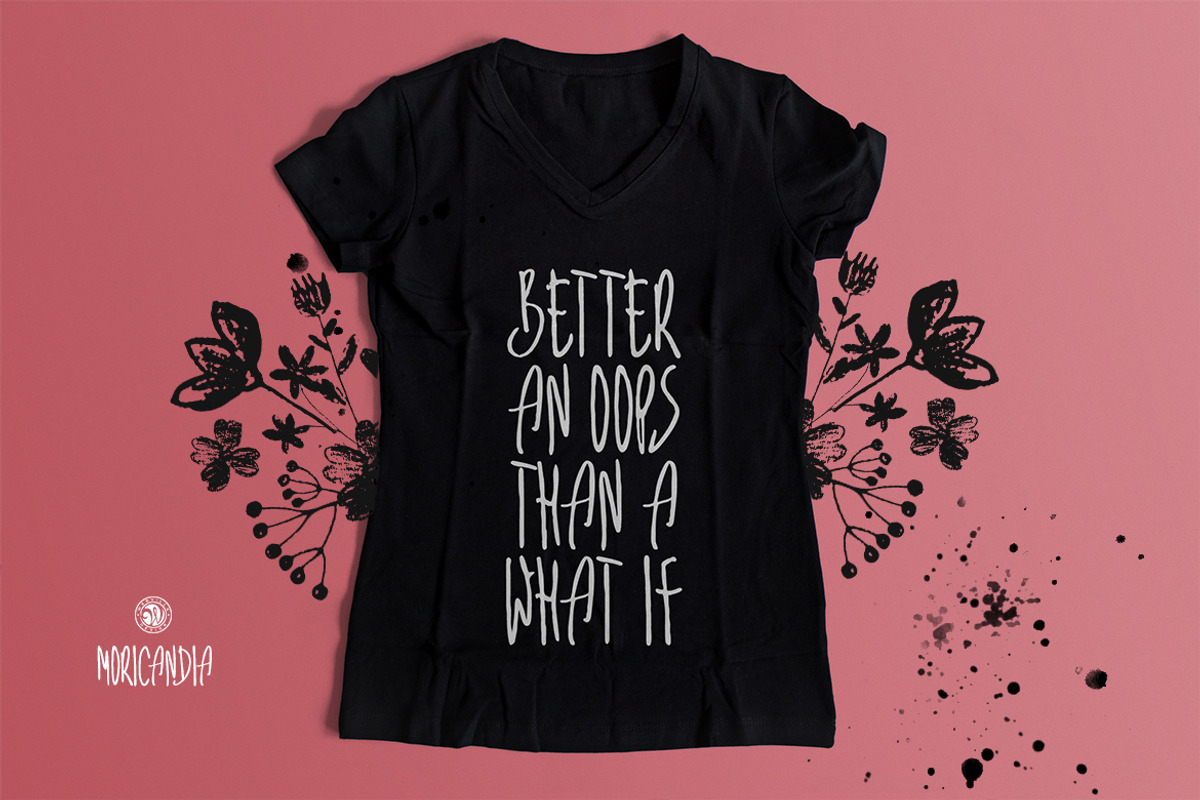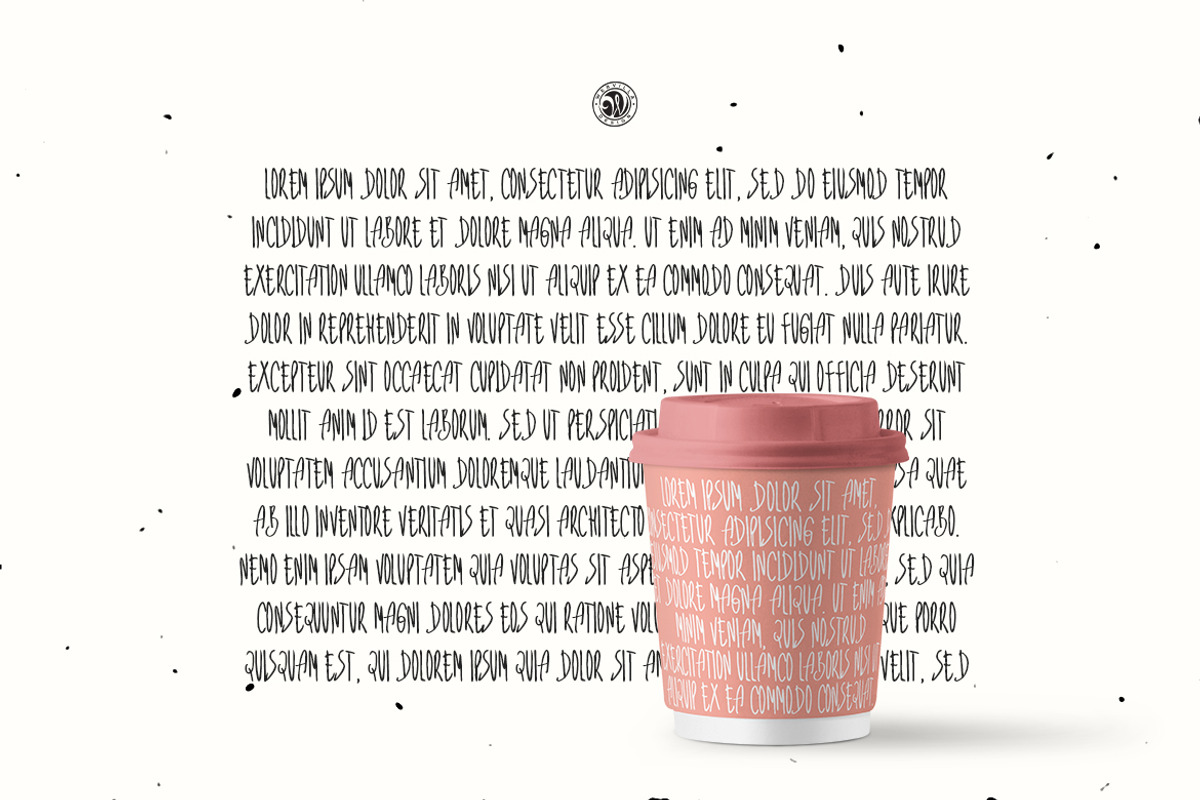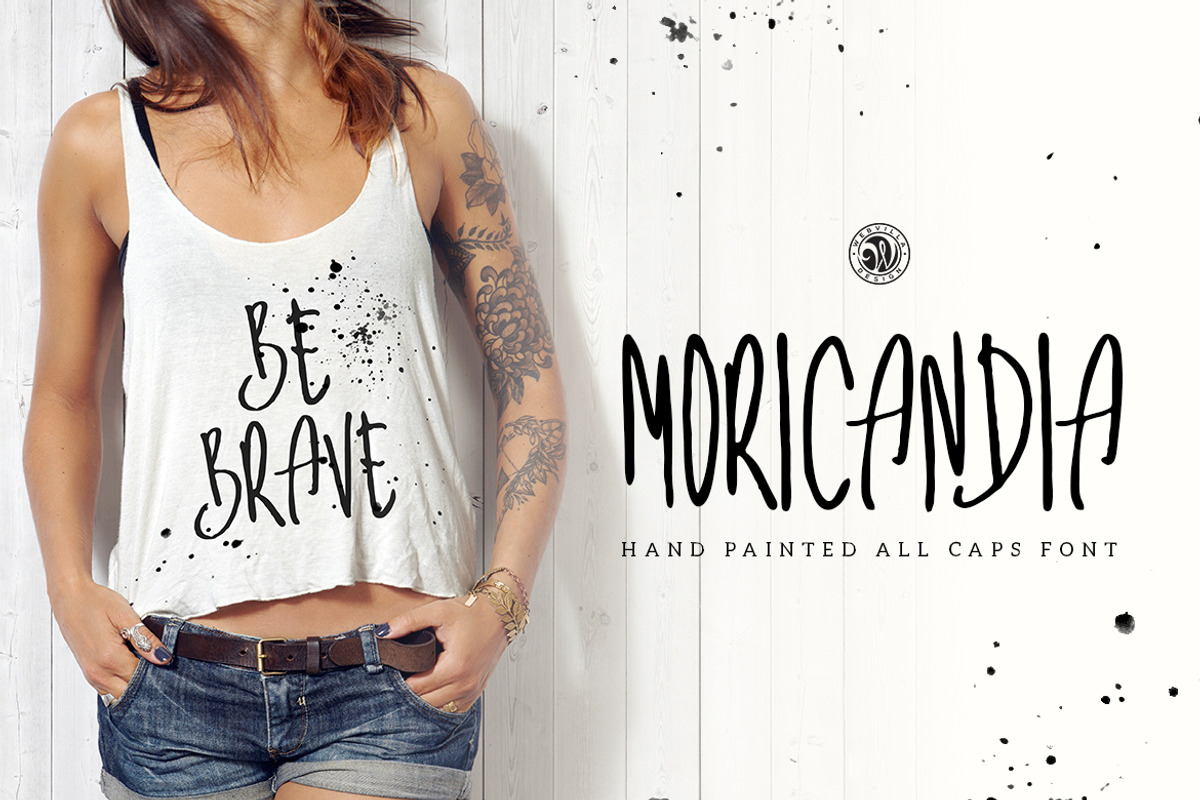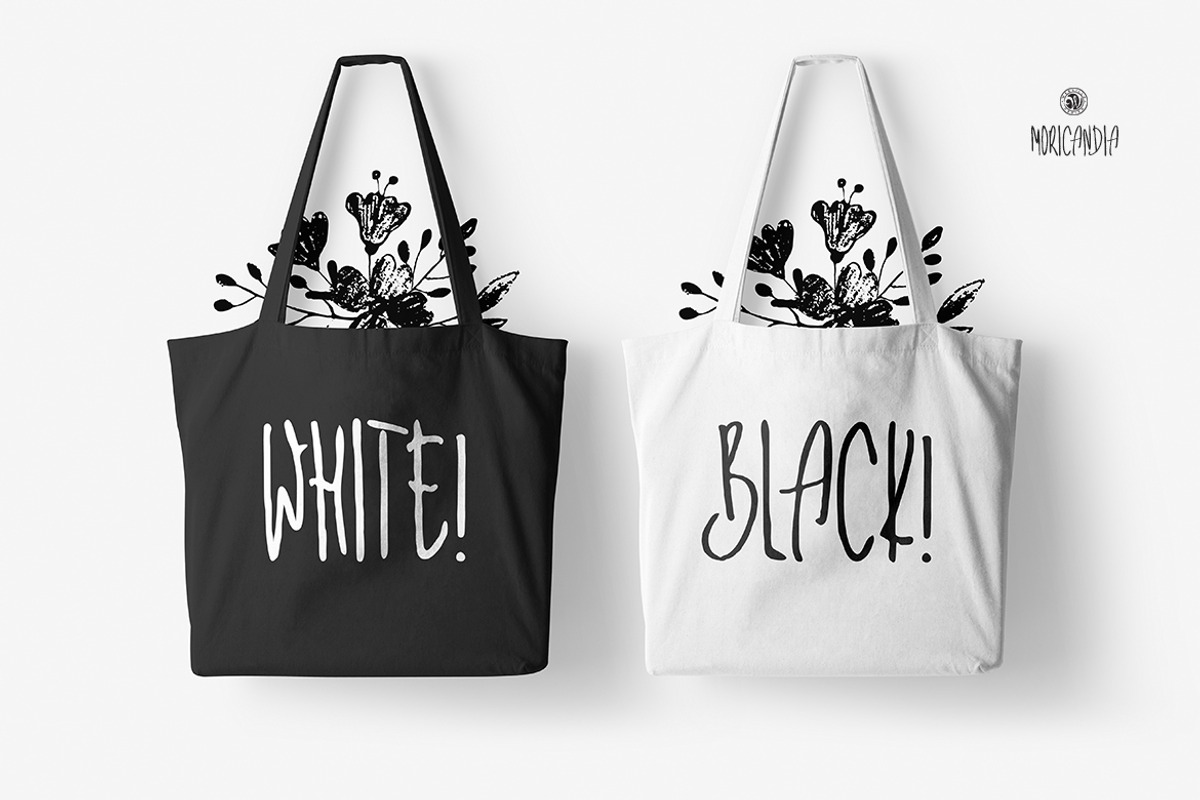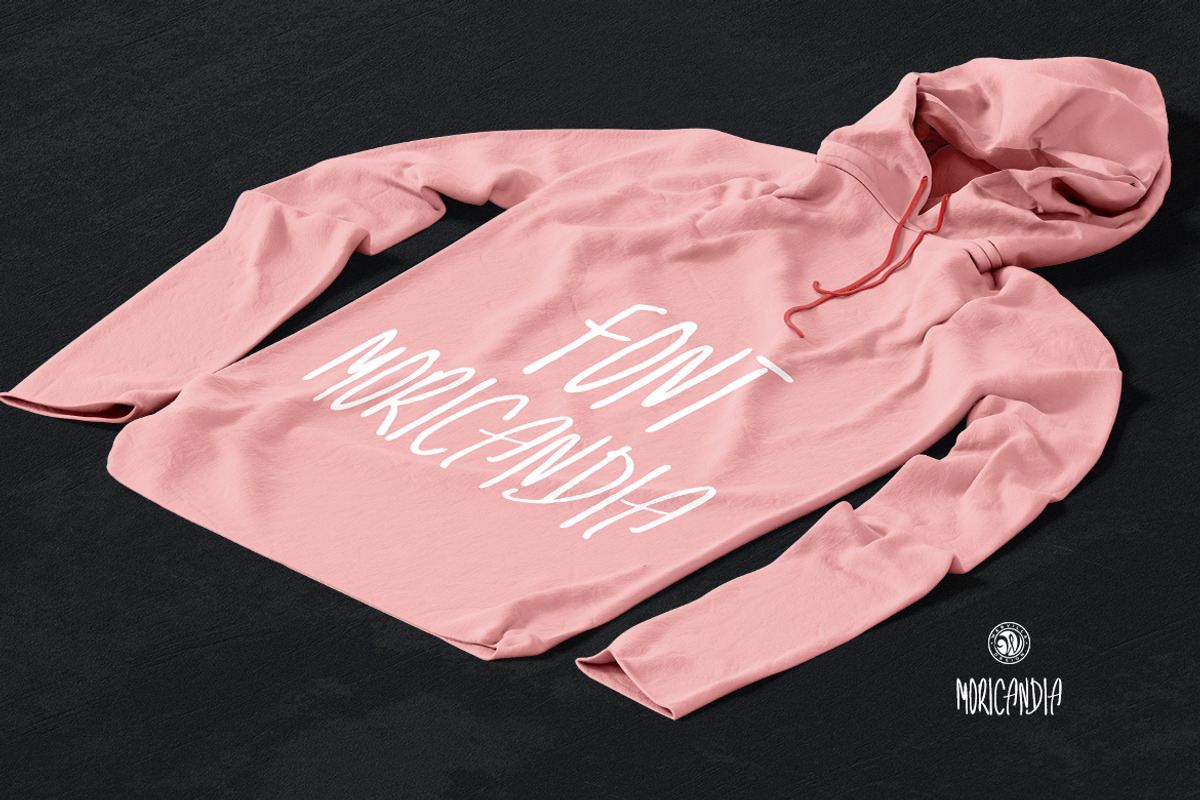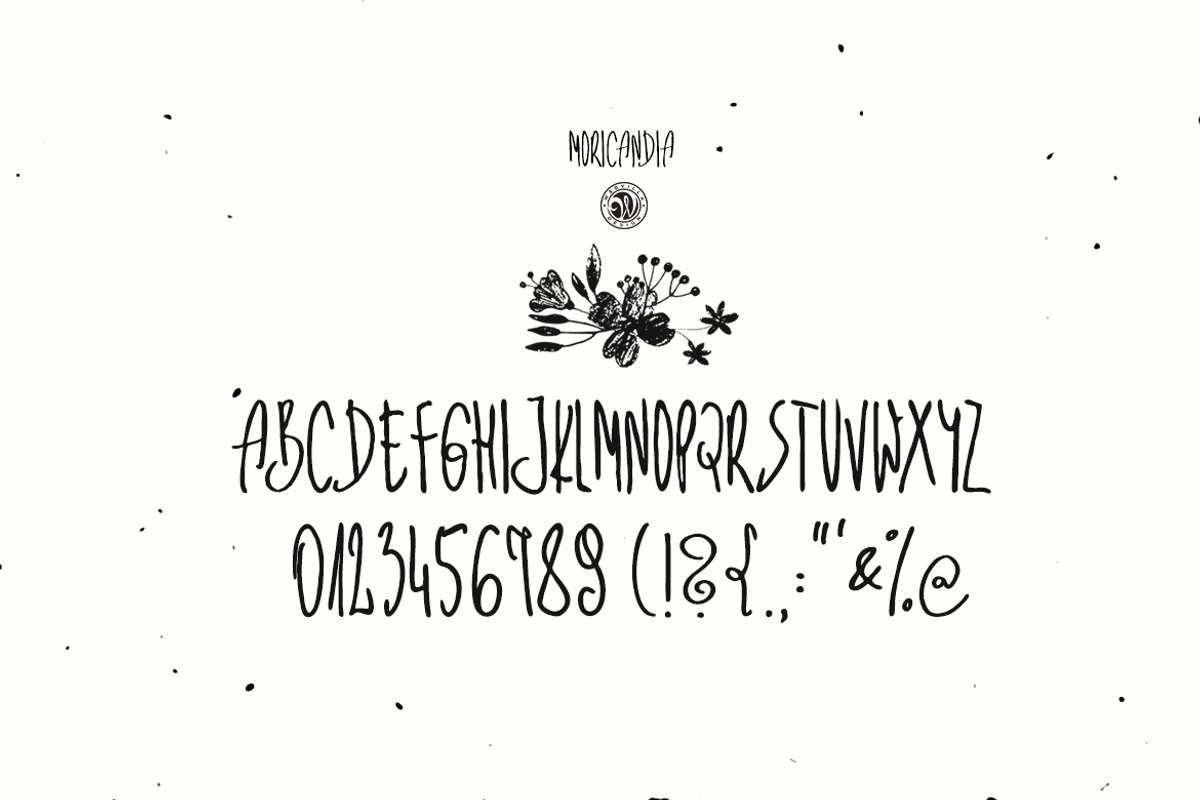
Moricandia Font
Moricandia Font by Webvilla Studio is a font selected for branding, posters, packaging, typography.
Why Moricandia Font is worth a look
Moricandia Font by Webvilla Studio fits naturally into Branding, posters, packaging, typography.